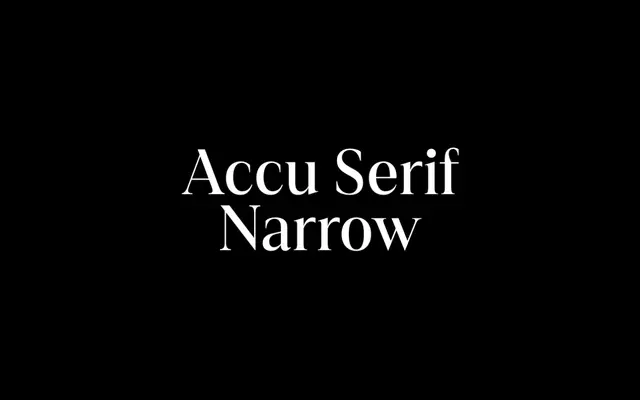
af Accu Serif Narrow
af Accu Serif Narrow specimen from a.Foundry
A narrow-width contemporary serif with sans-serif rhythm and a tall x-height, released as part of the three-width af Accu Serif family by a.Foundry in 2024.
Part of a.Foundry's af Accu Serif collection alongside Standard and Condensed widths, the Narrow cut offers 18 styles spanning nine weights from Thin to Black with matching italics, plus a variable font. Its tall x-height and glyph rhythm draw on sans-serif design logic while retaining conventional serif structure, making it suited to digital editorial and display settings. Language support runs to 215 Latin-based languages with broad European diacritic coverage.
A contemporary serif with a tall x-height and rhythm drawn from sans-serif aesthetics, sitting between traditional serif construction and modern sans-serif sensibility. The narrow width variant positions it for space-efficient text and display work in digital contexts.